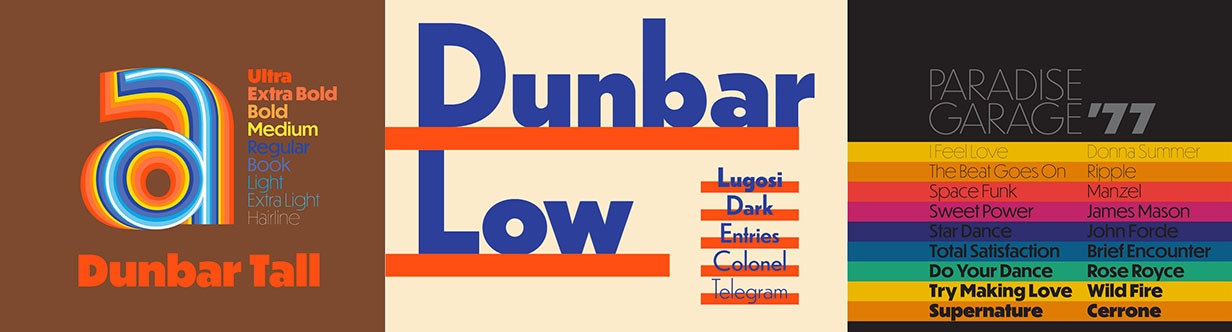
Dunbar Font
Dunbar Font is perfectly suited for literary publications, scholarly book designs, academic journal layouts, cultural institution branding, poetry collections, intellectual magazine covers, philosophical text presentations, university communications, and distinguished editorial materials.
What makes Dunbar Font so exciting is its profound intellectual sophistication and literary elegance that perfectly honors the legacy of great literary minds while bringing exceptional readability and scholarly authority to contemporary publishing through every thoughtfully crafted letterform. This distinguished typeface embodies the depth of literary excellence with its refined character shapes and classical proportions that evoke the timeless beauty of great literature and the pursuit of intellectual truth. The font's scholarly presence and cultural refinement create an atmosphere of academic authority and literary sophistication that resonates with educated audiences who appreciate the transformative power of written expression and intellectual discourse. Dunbar Font stands out through its ability to convey literary excellence, scholarly depth, and cultural authority, making it perfect for projects that need to establish intellectual credibility while celebrating the enduring beauty of literature and the pursuit of knowledge.
The Dunbar Font family includes Light, Regular, Medium, and Bold weights, each available in both roman and italic styles for comprehensive scholarly applications. The family also features small caps, old-style figures, and classical ligatures that enhance the font's academic appeal and provide complete solutions for sophisticated literary and educational design projects requiring traditional typographic excellence.
The technical excellence of Dunbar Font includes comprehensive character sets supporting multiple languages, advanced OpenType features, and precision-engineered spacing optimized for extended reading comfort in both digital and print applications. The font maintains exceptional legibility while preserving the sophisticated details that give it its distinctive literary character and scholarly authenticity.
Whether you're designing literary publications, creating academic materials, developing cultural project identities, or crafting designs that require intellectual sophistication and scholarly authority, Dunbar Font delivers the perfect combination of literary tradition and contemporary functionality that makes your projects intellectually compelling and culturally resonant for audiences who appreciate the profound beauty and transformative power of exceptional literature and scholarly discourse.